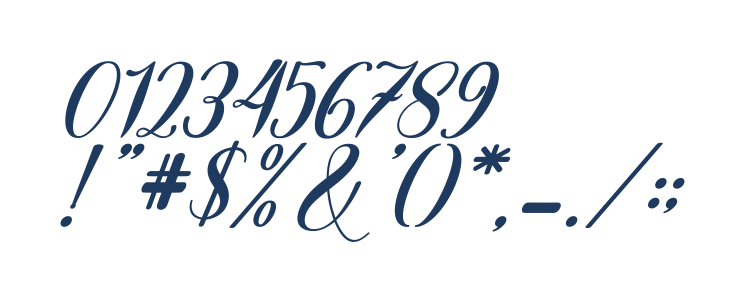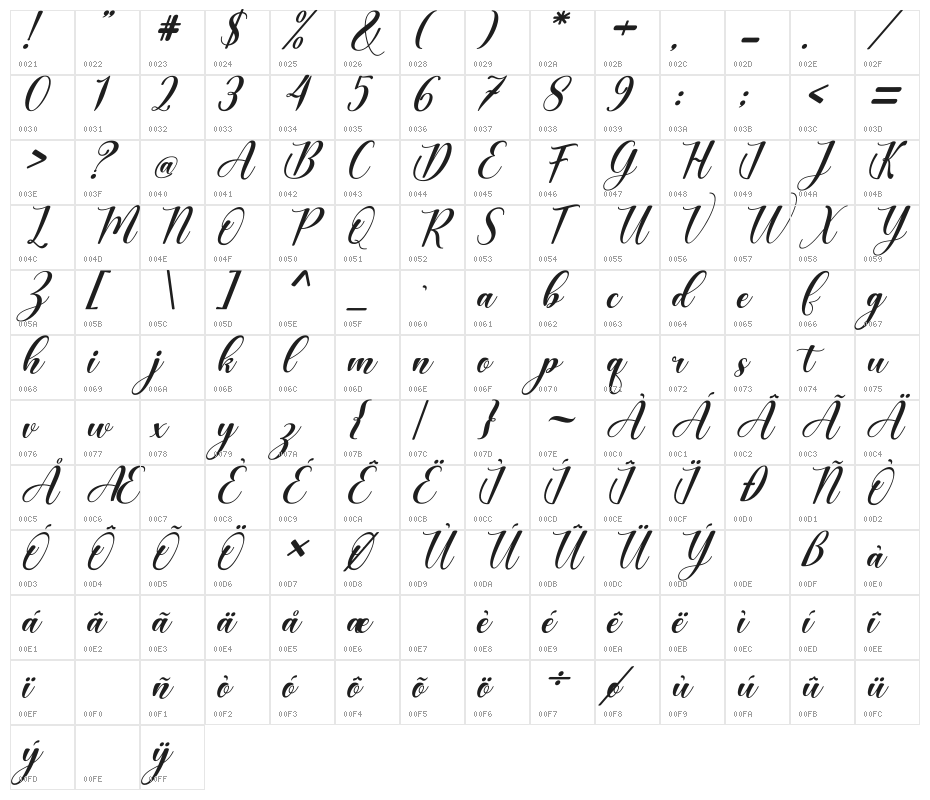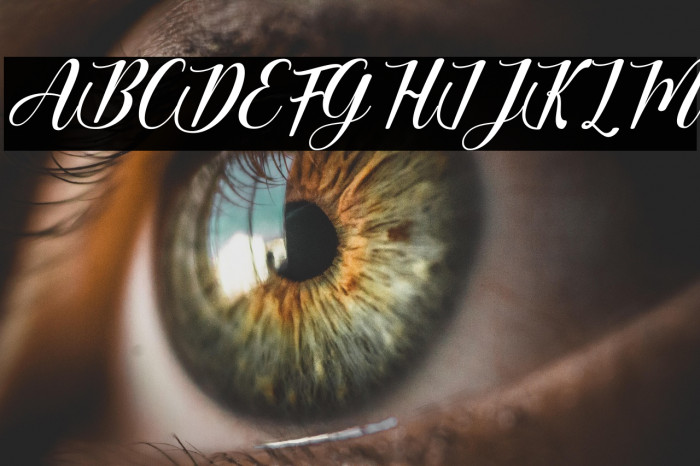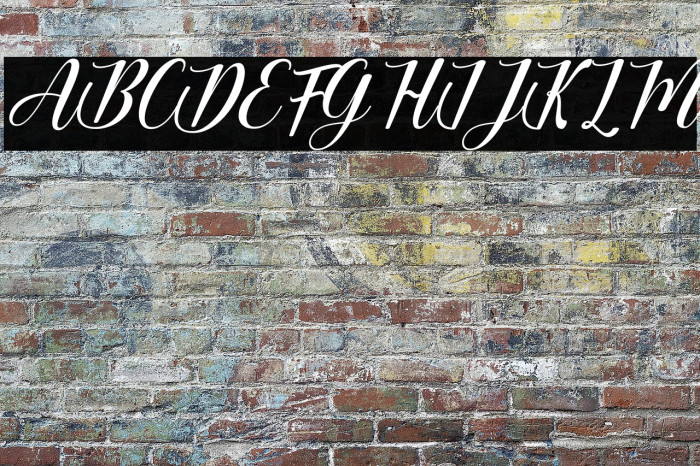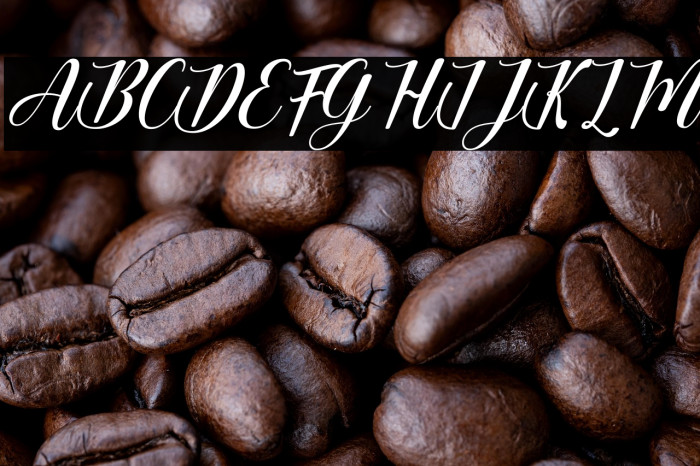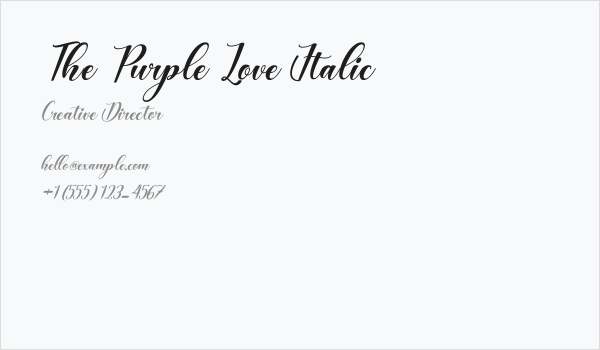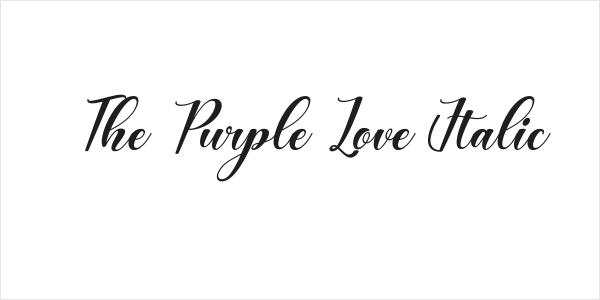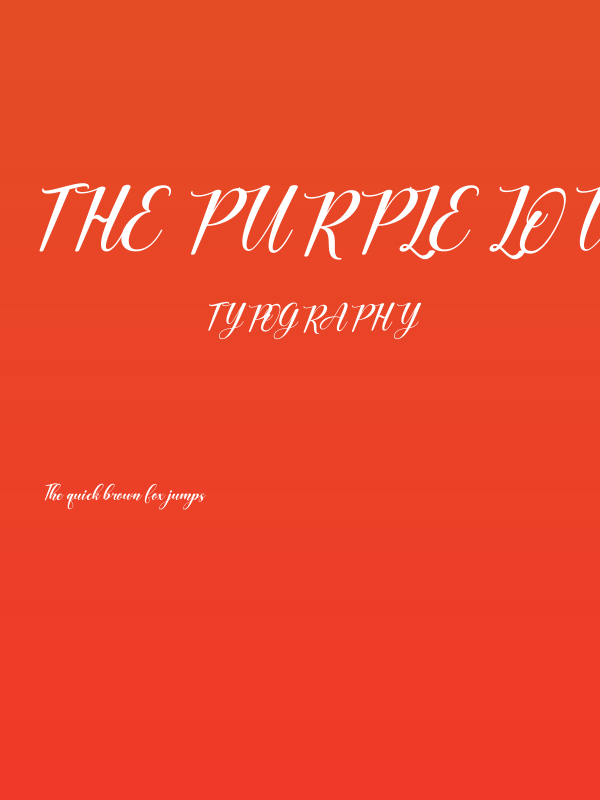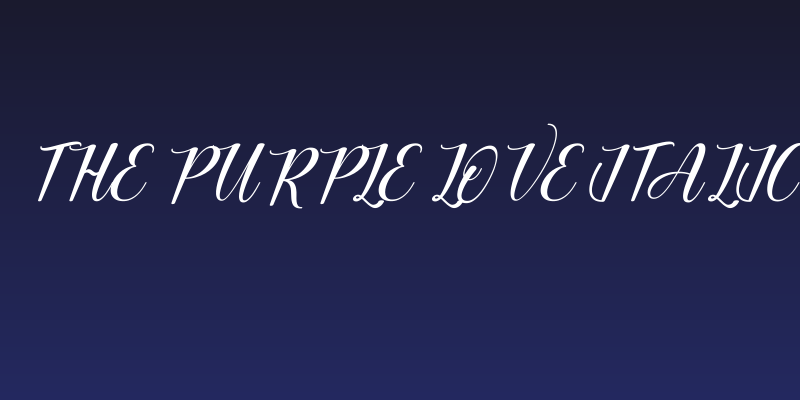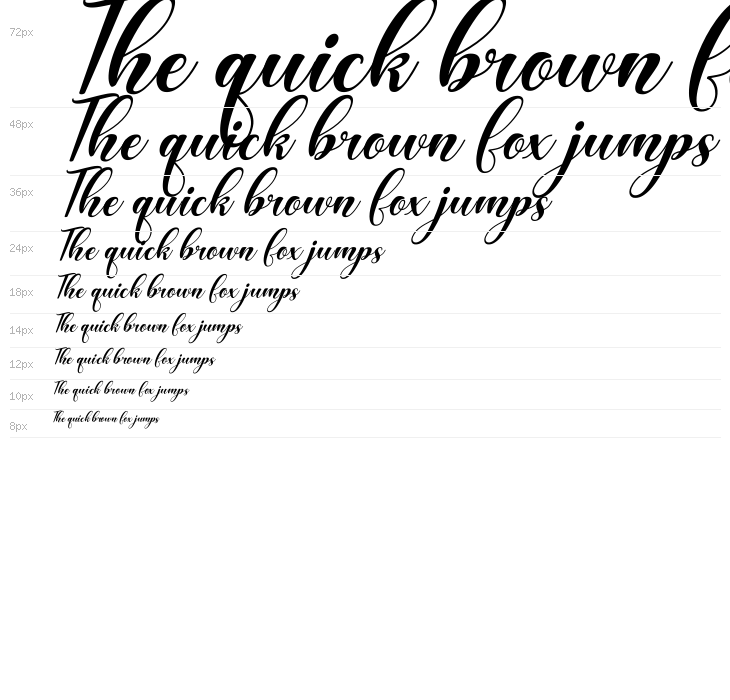
The Purple Love Italic Font
The Purple Love Italic Description
This font features a flowing, elegant script style with a distinctly italicized slant, giving it a sense of movement and grace. The characters are connected in a cursive manner, with smooth, sweeping curves and flourishes that add a touch of sophistication. The uppercase letters are ornate, with extended strokes and loops, while the lowercase letters maintain a consistent, flowing baseline. The numerals are styled to match the script's elegance, with curved lines and subtle embellishments. Special characters are integrated seamlessly, maintaining the overall aesthetic. This font is ideal for projects that require a touch of elegance and personalization.